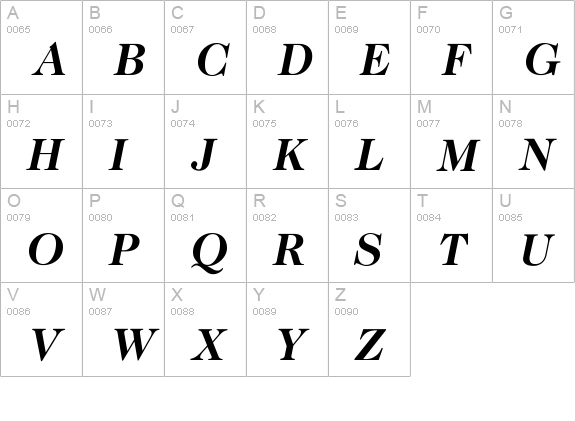
CaslonBoldItalic Font Details
CaslonBoldItalic is a sophisticated and classic font that exudes elegance and refinement. With its bold weight and italic styling, this typeface is perfect for creating eye-catching headlines, titles, and logos. The CaslonBoldItalic font strikes the perfect balance between tradition and modernity, making it versatile for a wide range of design projects. Best of all, CaslonBoldItalic is available for free download at FontsMarket.com. This means that you can easily access this stunning font and incorporate it into your designs without any cost. Whether you're working on a print project, website design, or branding materials, CaslonBoldItalic is sure to elevate your work with its timeless charm and visual impact. Don't miss out on this opportunity to enhance your design arsenal with the CaslonBoldItalic font, now available for free at FontsMarket.com.